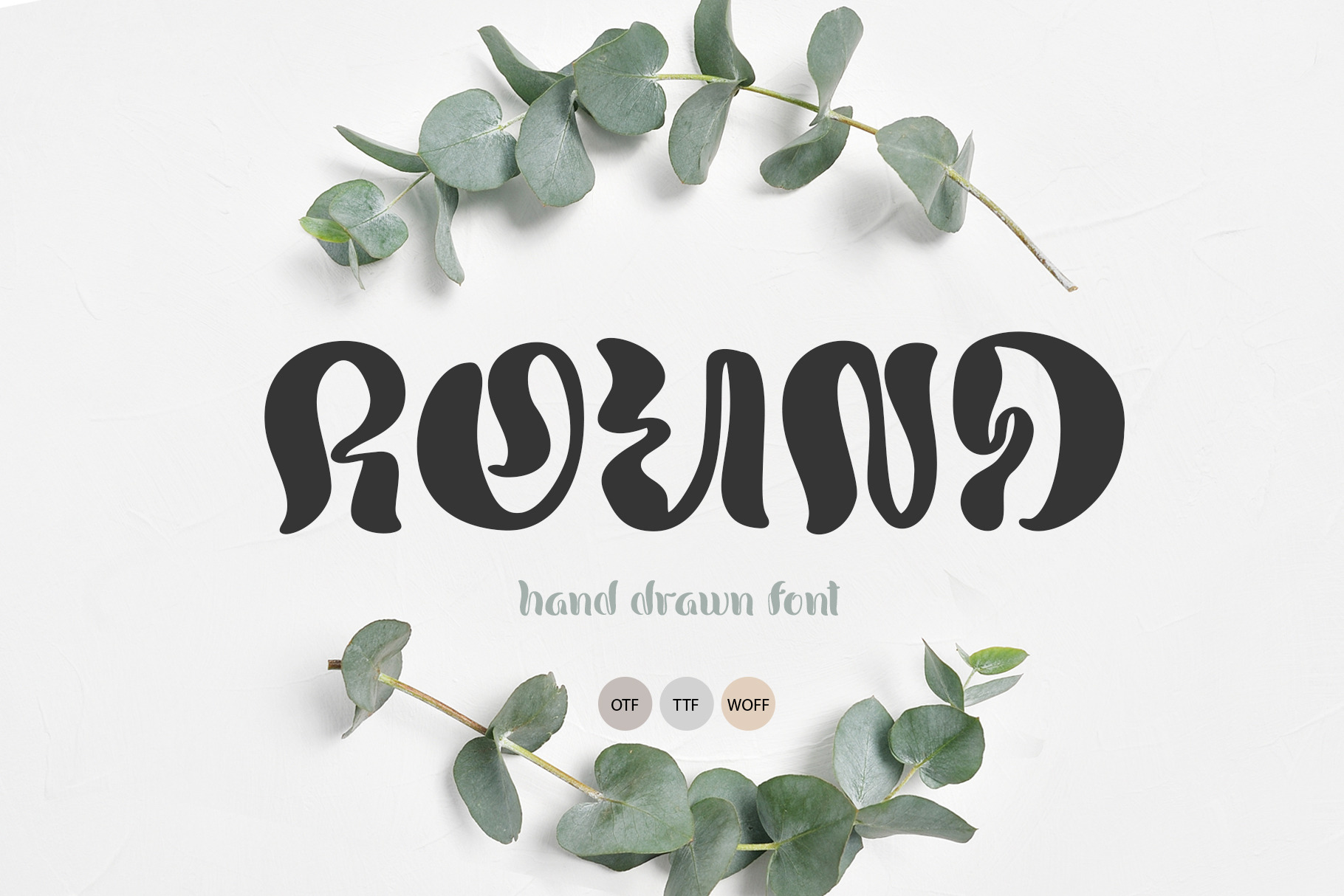
Round Hand Drawn Display liquid Font
I'm glad to introduce you Hand Drawn Display liquid Font Round. Hand drawn font Round is a playful yet elegant sans-serif typeface. It helps to find inner peace of the soul and consciousness. Ideal for creativity and positive. :)
Use and match for even more fun. Create word art, designs, and more with this fun font! A coordinating lowercase cute alphabet is included as well as numbers and punctuation, so you can get creative with your projects.
The font is ideal for use in social media, a logo for stores and applying valentine sublimation on a cup, t-shirt, shopper, thermos, greeting card, book, magazine, modern logos to instagram quotes, portfolio websites, editorial layouts, branding, wedding stationery, product packaging and more.